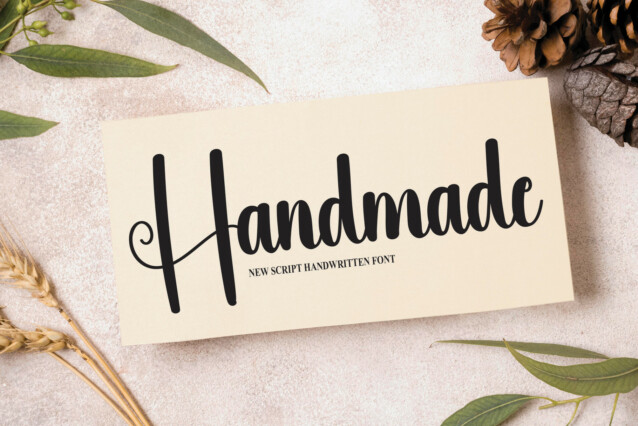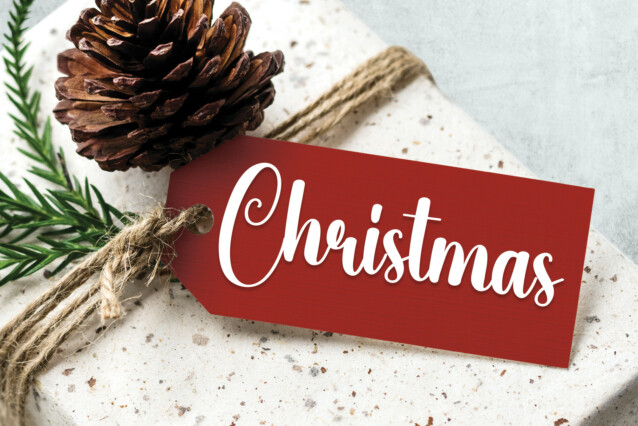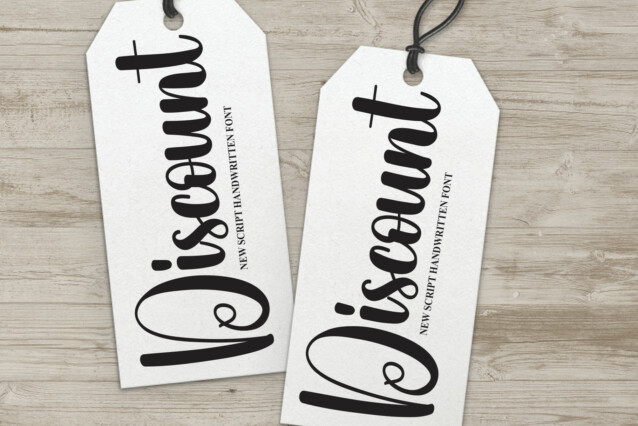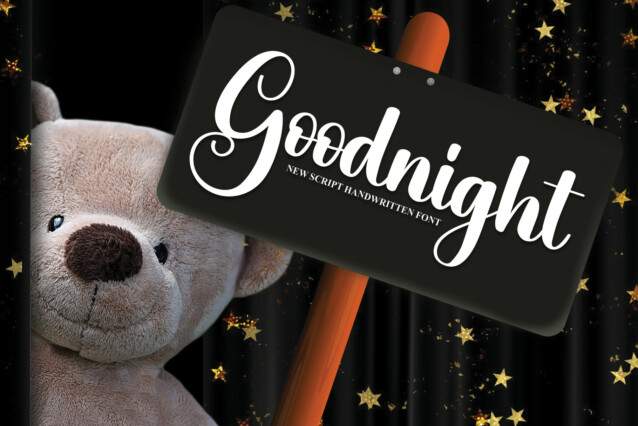
Vegan Script Font
Vegan Script Font is a cool and casual handwritten font. Whether you’re using it for crafts, digital design, presentations, or making greeting cards, this font has the potential to become your favorite go-to font, no matter the occasion.